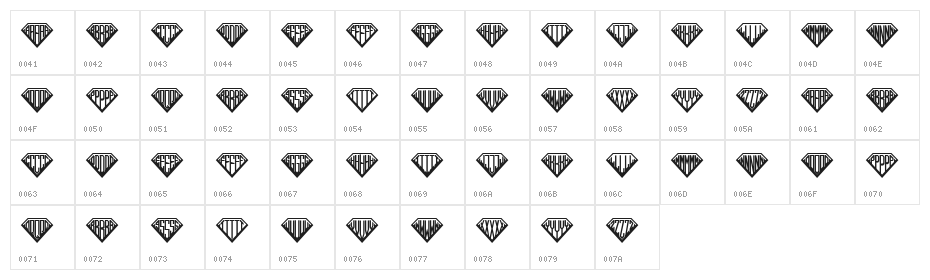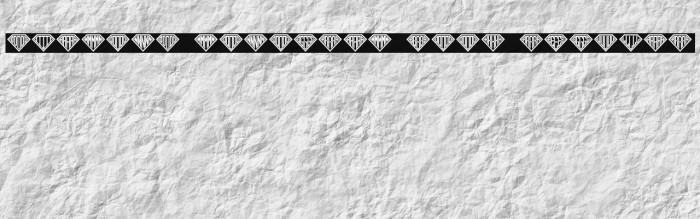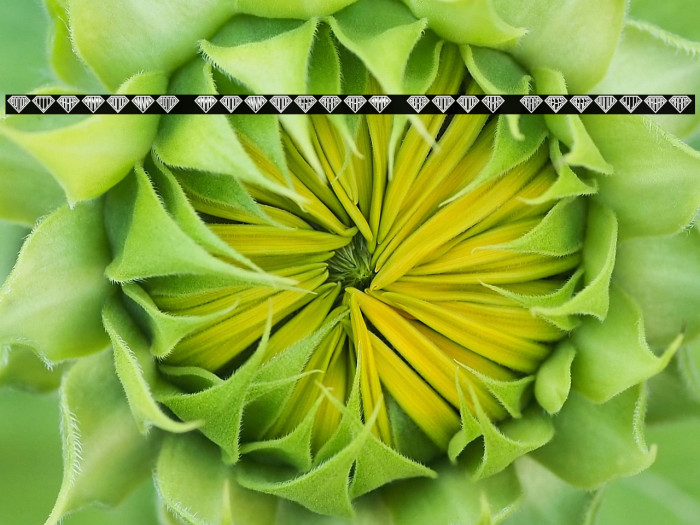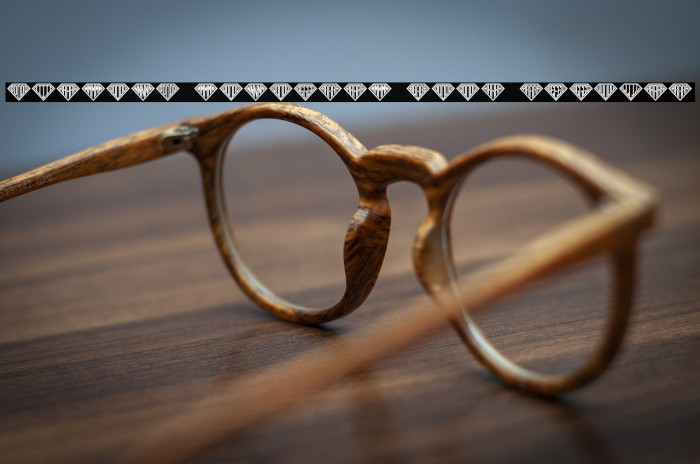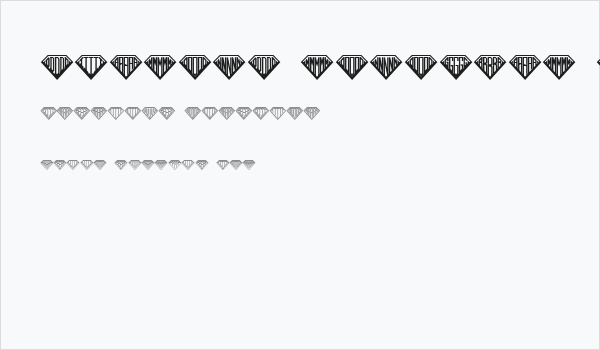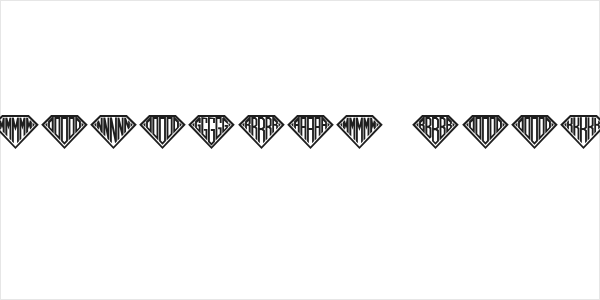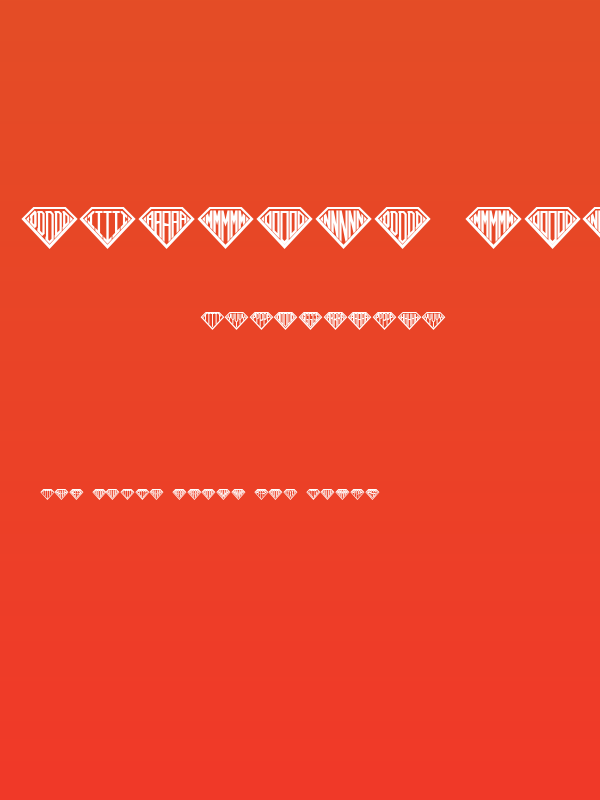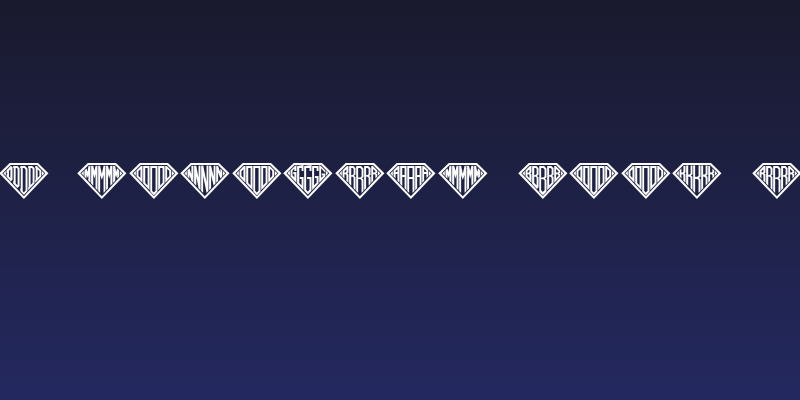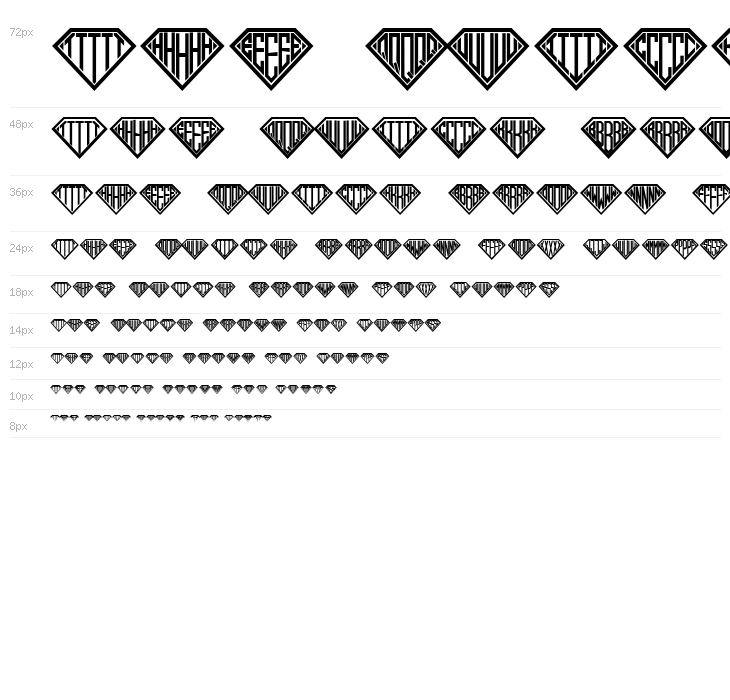
Diamond Monogram Book Regular Font
Diamond Monogram Book Regular Description
This font features a unique monogram style where each character is encased within a diamond shape, creating a distinct and decorative appearance. The letters and numbers are stylized with geometric lines and angles, giving them an art deco feel. The design is consistent across both uppercase and lowercase letters, as well as numbers, maintaining a cohesive look. The special characters are also integrated into the diamond shapes, ensuring uniformity throughout the font. This font's intricate design makes it stand out, ideal for projects that require a touch of elegance and sophistication.
| Use Case | Logos, Invitations, Branding |
| Proposed Projects | Ideal for luxury branding, wedding invitations, high-end product packaging, and decorative monograms. |